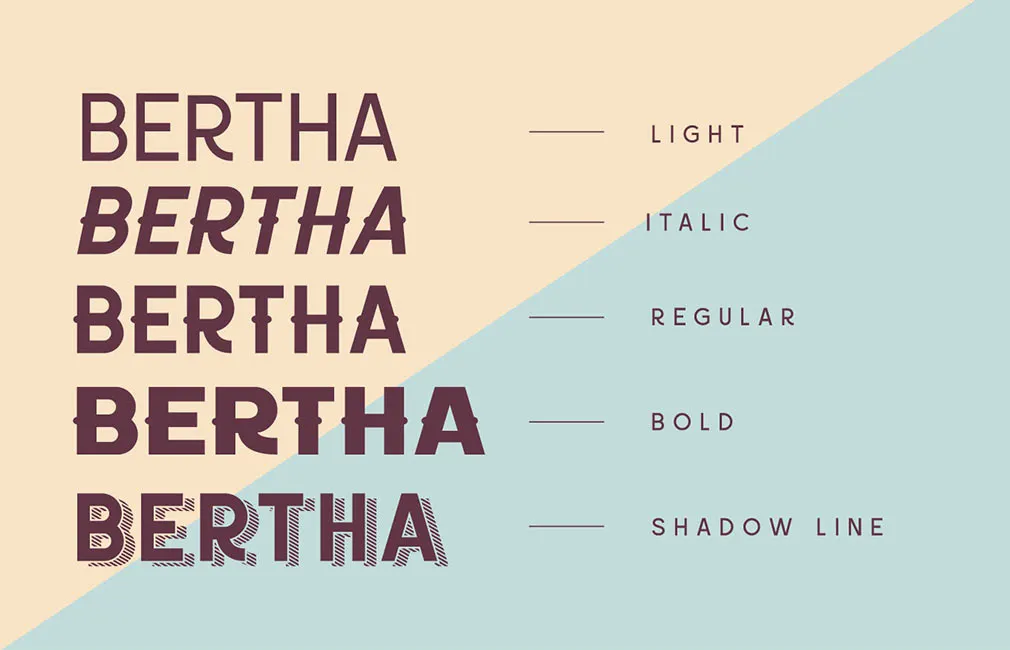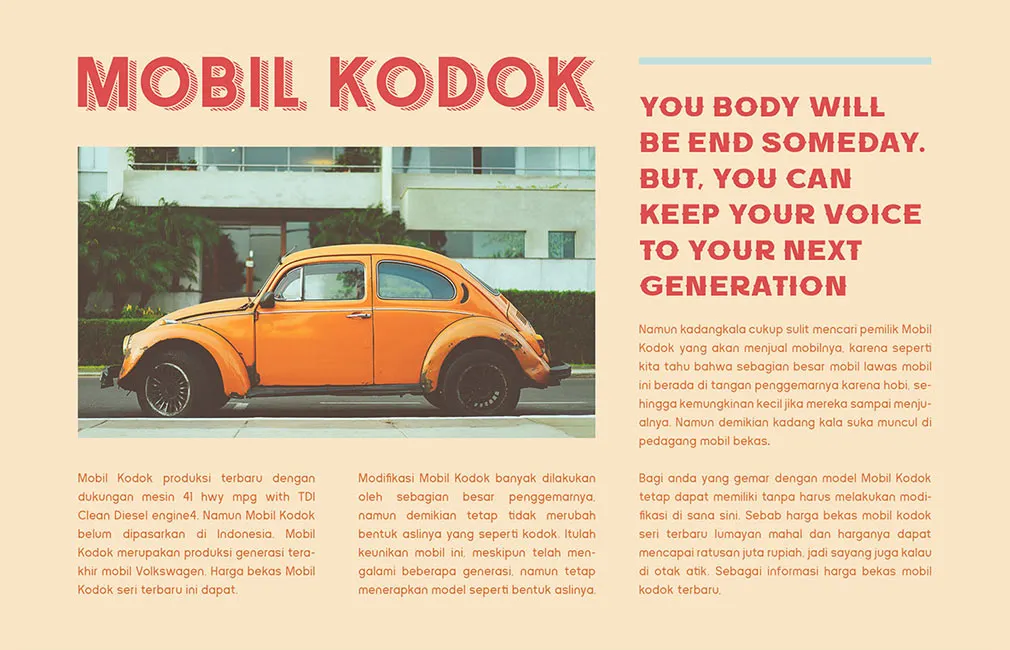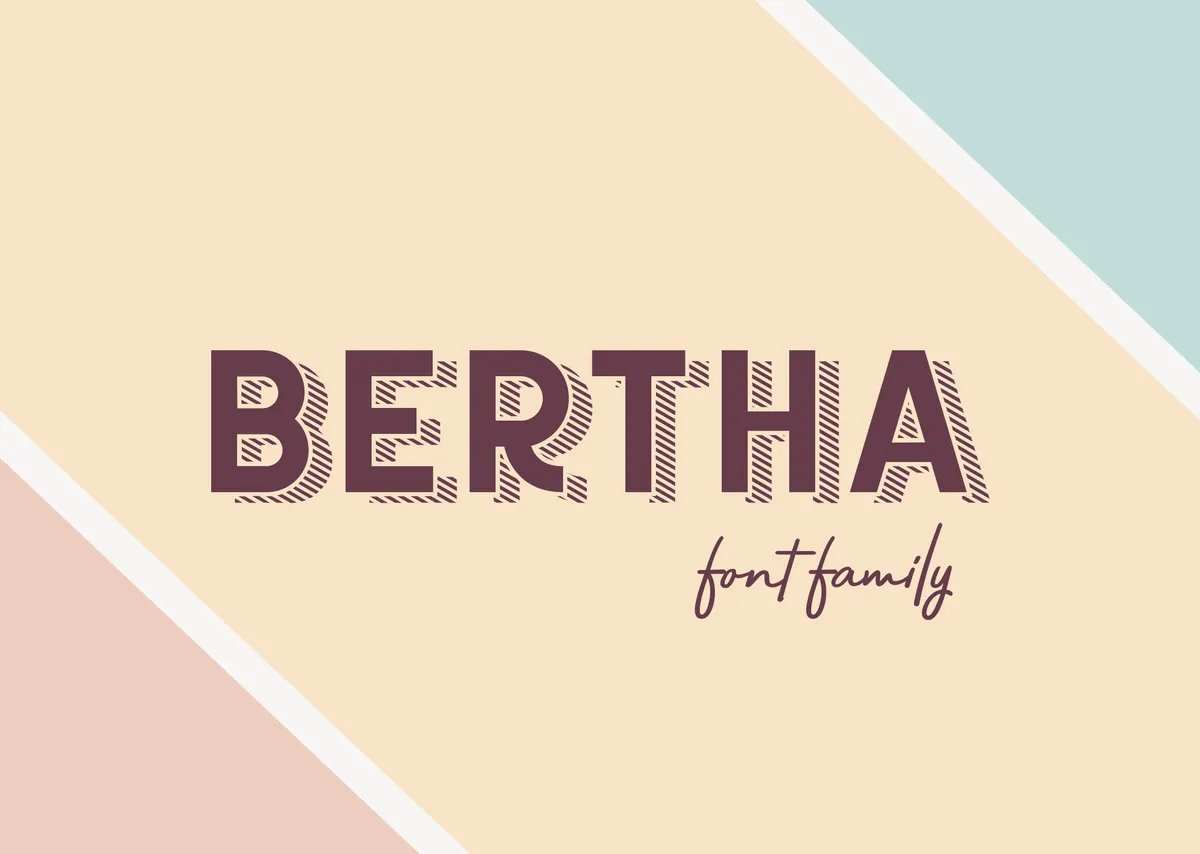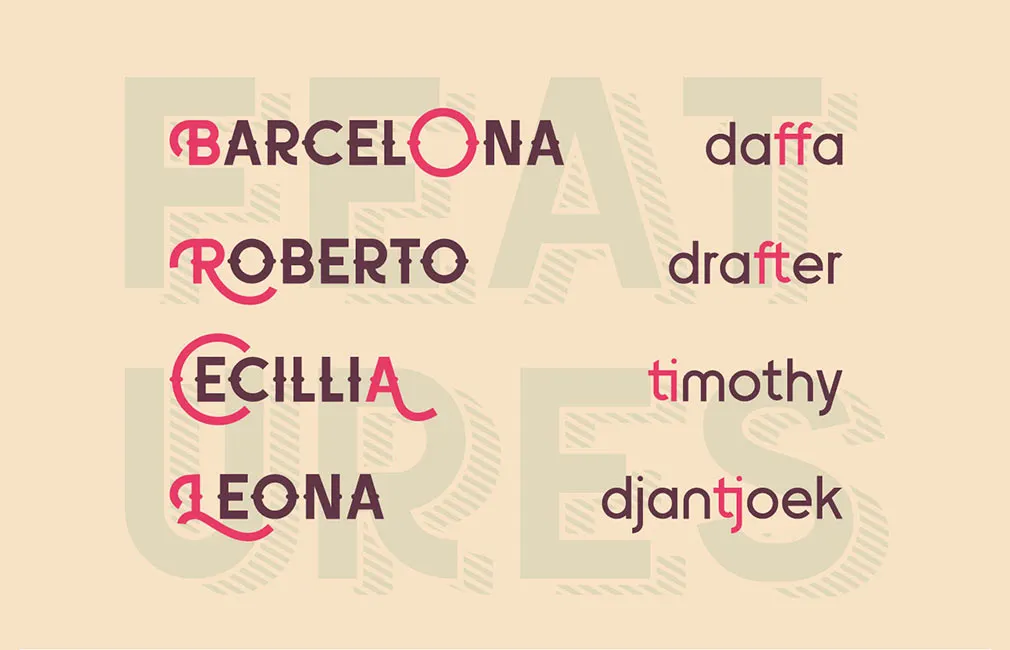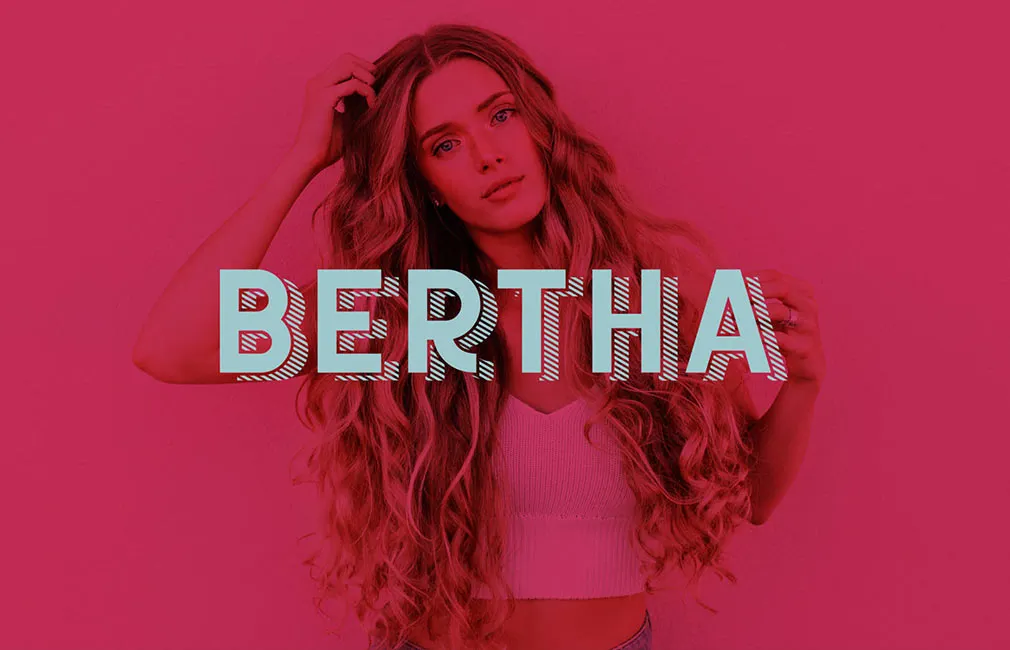
Bertha Font Family
Have a strike from the past with Bertha a font family composed of 5 masterly created typefaces you might have seen on retro vinyl records cases and yellowish pages of your favorite magazines.
All 5 typefaces perfectly complete each other or can be used stand-alone if you wish so. Also, being fully packed with alternates, numerals, punctuation and 21 languages characters makes Betha a convenient tool whenever you need it. So if you are searching a typeface for the headline, sub-headline, tagline, and body text that may embrace vintage & modern vibes, these are the best choice.